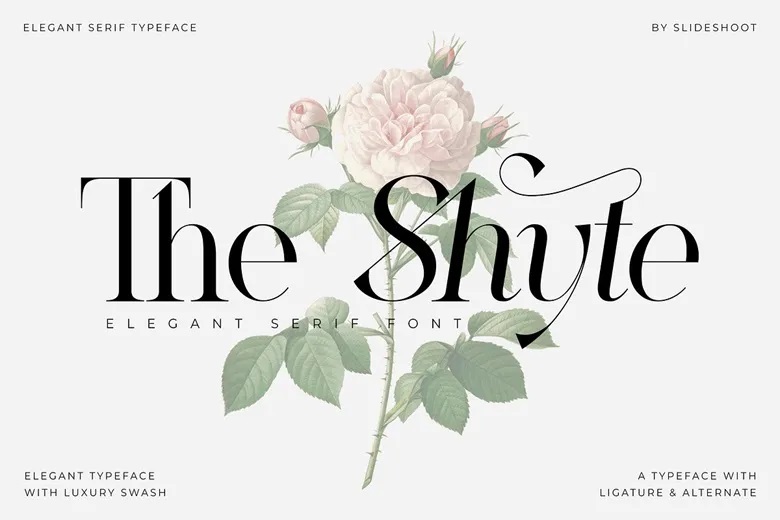
The Shyte Font
The Shyte is an elegant serif font that contains a clean, harmonious, graceful and beautiful serif style. This typeface has two basic styles – Regular and Italic – which are supposed to harmoniously complement each other and exist independently. He has a beautiful character.
Ideal for using with invitation cards, company logos, films titles, names of films, business cards, book titles, brand names and other designs. The Shyte is a smooth serif font that gives the creative work a touch of class. Stylish alteration and binding make this font a great companion for any project that you may have.
The Shyte Serif Font